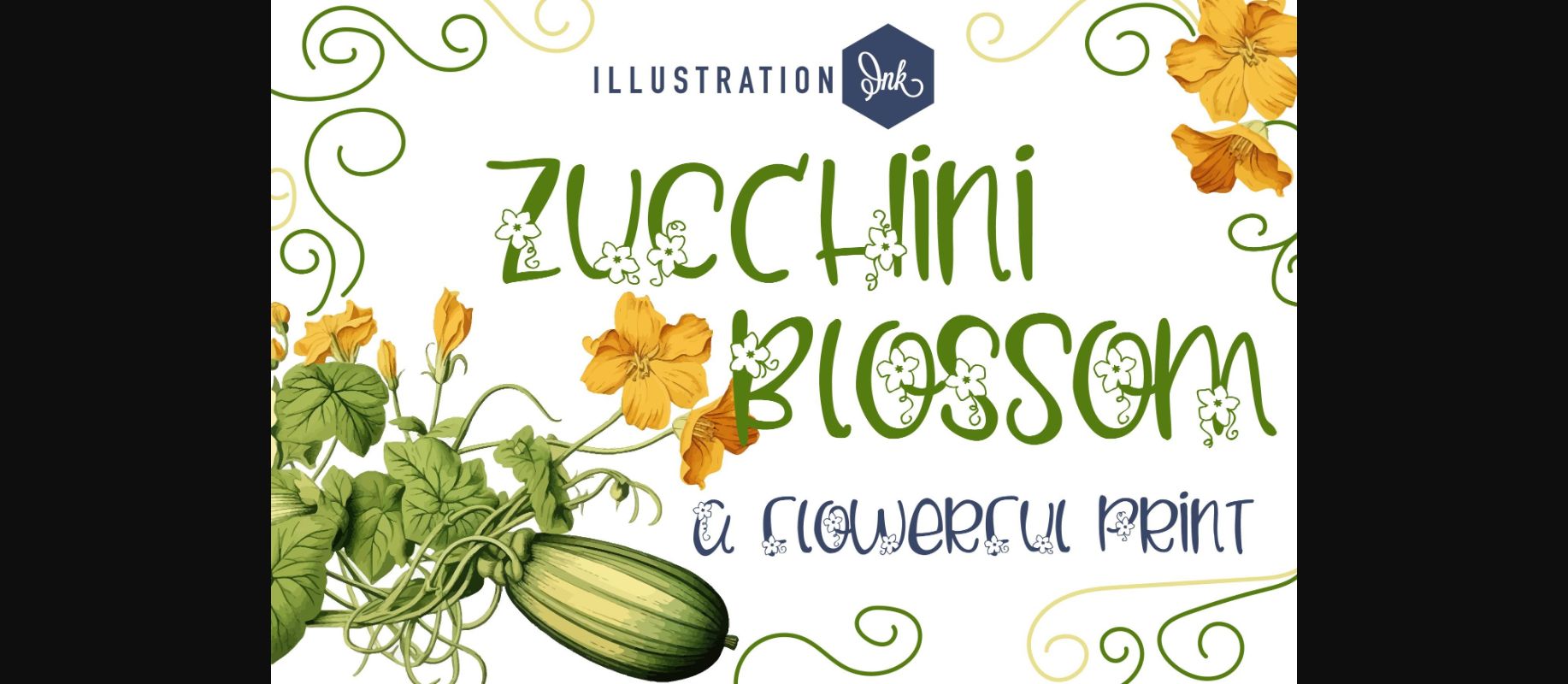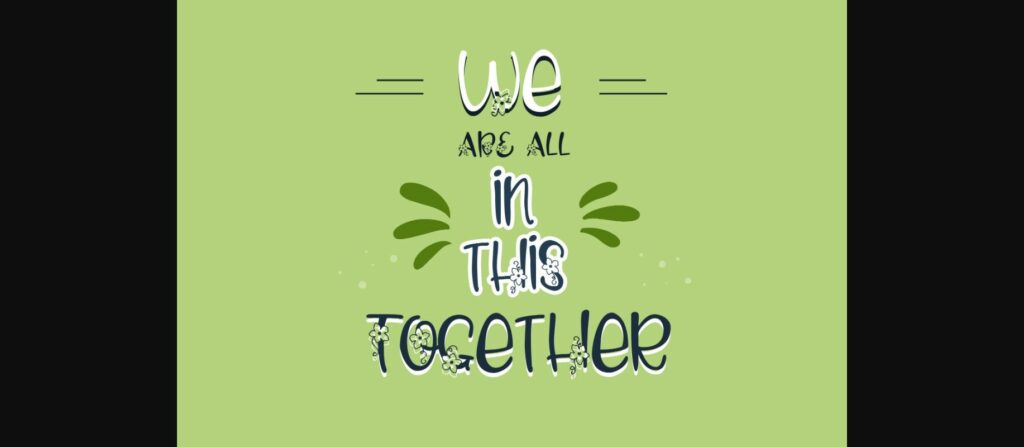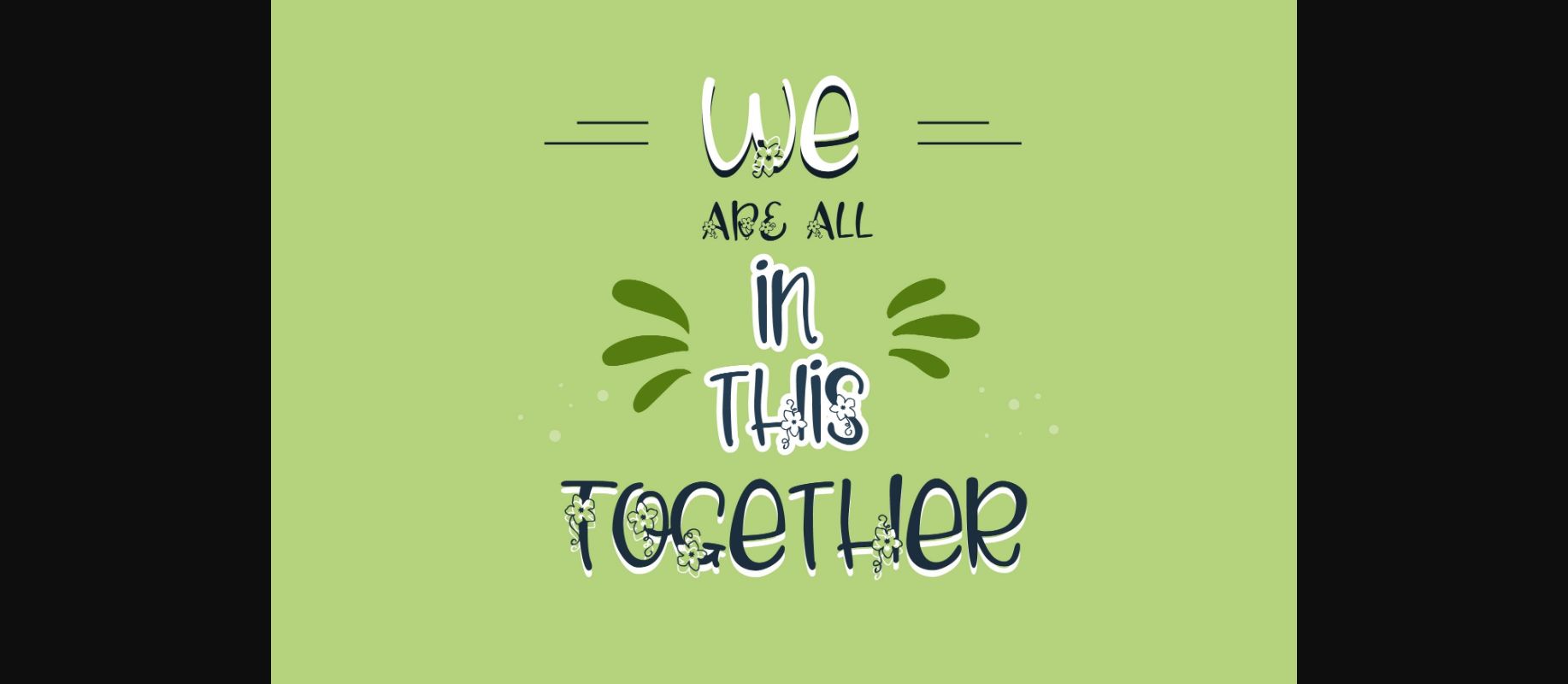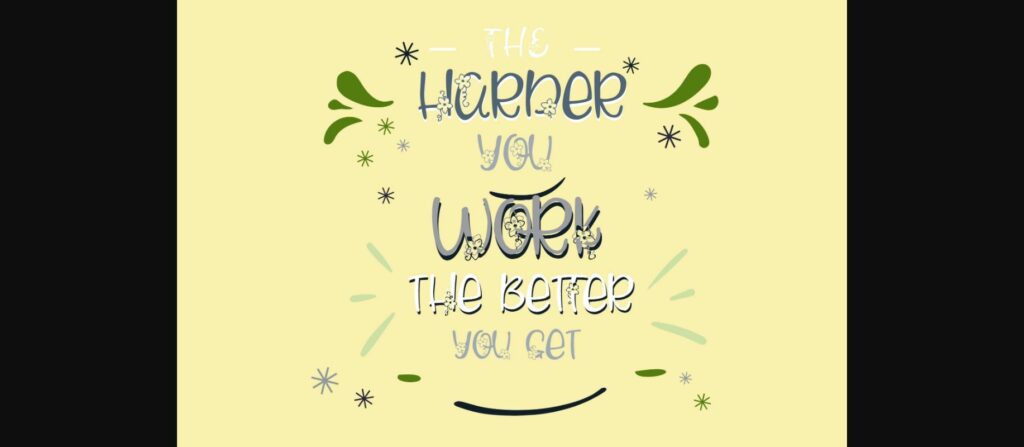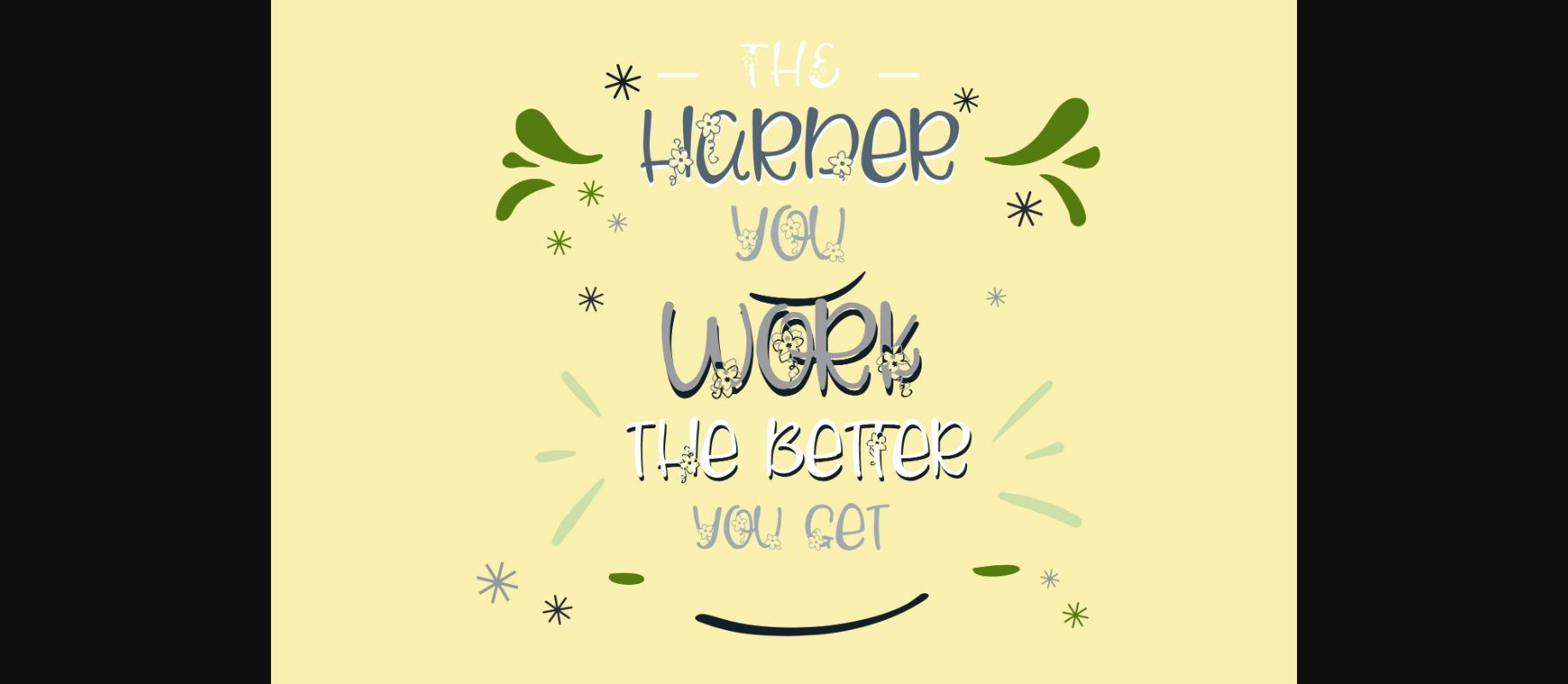
About Zucchini Blossoms Font
Zucchini Blossoms is a delightful decorative font that captures the essence of a blooming garden. With its charming floral elements and playful curves, it adds a touch of whimsy to any design. Perfect for invitations, greeting cards, and nature-themed projects, Zucchini Blossoms brings the joy of nature to your creations, infusing them with a fresh and fun vibe.